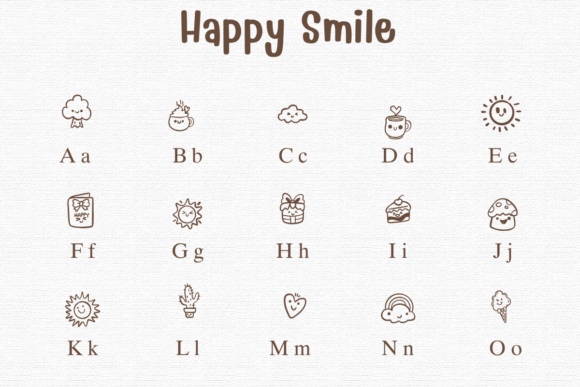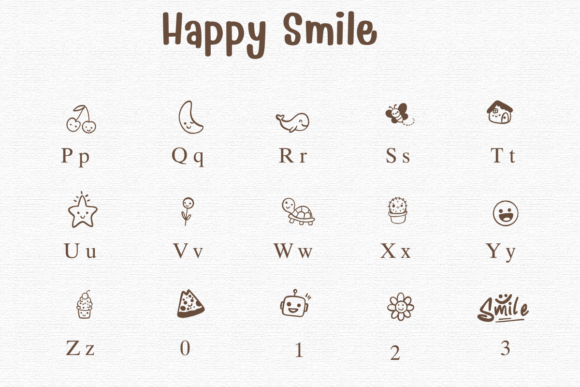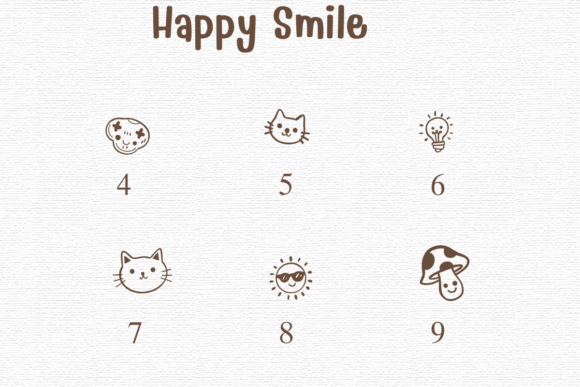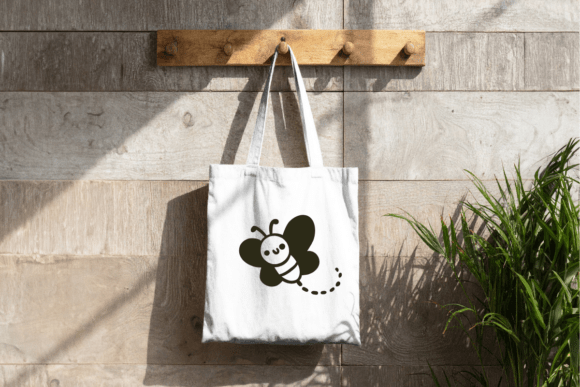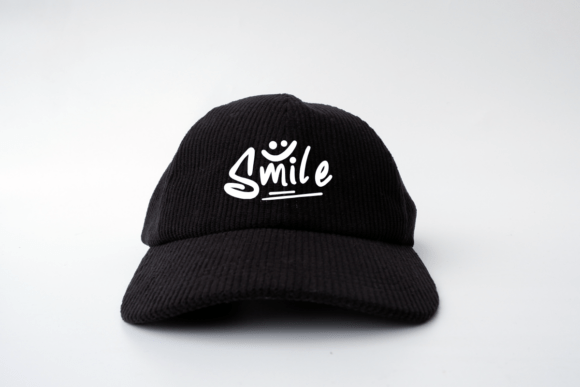
Introducing Happy Smile Font: The Ultimate Design Companion for Creatives
Are you a designer, crafter, or artist looking for a font that can add a touch of whimsy and fun to your projects? Look no further than the Happy Smile Font! This delightful font is designed to bring a smile to your face and a dash of playfulness to your designs. In this article, we’ll explore the features and benefits of Happy Smile Font, and how it can elevate your creative projects.
What is Happy Smile Font?
Key Features of Happy Smile Font
- Coloring Outline: Happy Smile Font features a coloring outline style that allows you to add a pop of color to your designs. This feature is perfect for creating fun and playful illustrations, logos, and graphics.
- Dingbats: The font includes a range of dingbats that can be used to add decorative elements to your designs. These dingbats are perfect for creating icons, graphics, and other visual elements.
- Doodle Cartoon Style: Happy Smile Font has a delightful doodle cartoon style that is sure to bring a smile to your face. This style is perfect for creating playful and whimsical designs that are perfect for kids’ projects, party decorations, and more.
Benefits of Using Happy Smile Font
So, why should you choose Happy Smile Font for your design projects? Here are just a few benefits of using this delightful font:
- Adds a Personal Touch: Happy Smile Font allows you to add a personal touch to your designs, making them more unique and engaging.
- Perfect for Kids’ Projects: The font’s playful and whimsical style makes it perfect for kids’ projects, such as party decorations, activity sheets, and educational materials.
- Versatile: Happy Smile Font can be used for a range of design projects, from logos and branding to illustrations and graphics.
Tips and Tricks for Working with Happy Smile Font
Here are a few tips and tricks to help you get the most out of Happy Smile Font:
- Experiment with Colors: Don’t be afraid to experiment with different colors and color combinations to add depth and interest to your designs.
- Mix and Match: Mix and match the font’s various features, such as the coloring outline and dingbats, to create unique and engaging designs.
- Use in Combination with Other Fonts: Happy Smile Font can be used in combination with other fonts to create interesting and dynamic designs.